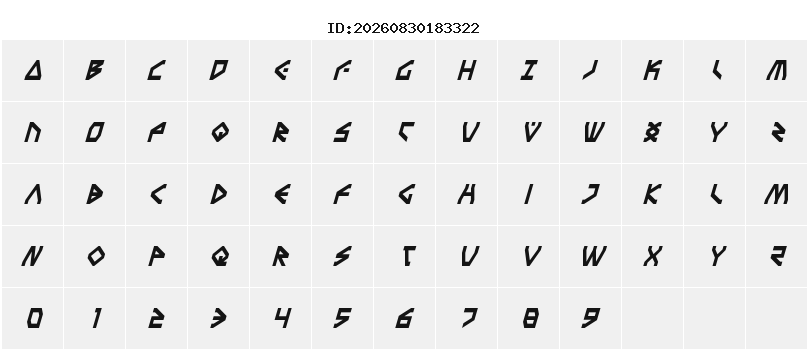
Terra Firma Condensed Italic Preview
• Font Name: Terra Firma Condensed Italic
• Font Style: Condensed Italic
• Full Font Name: Terra Firma Condensed Italic
About Terra Firma Condensed Italic.ttf
Terra Firma Condensed Italic.ttf is a modern, elegant sans-serif font designed for ultimate readability and visual harmony. Perfect for branding, headlines, web design, and print materials.